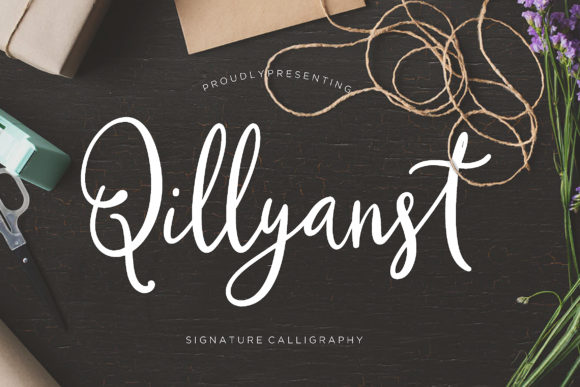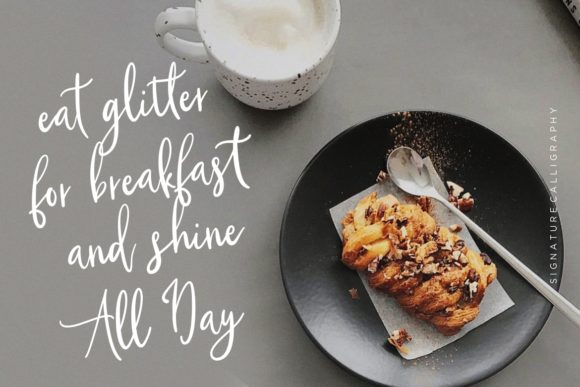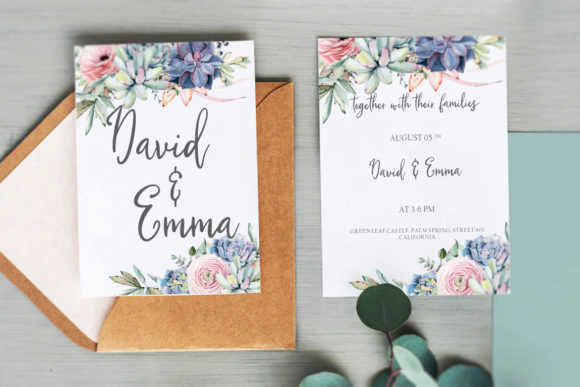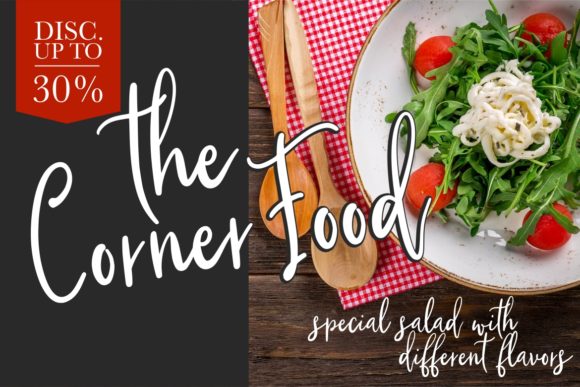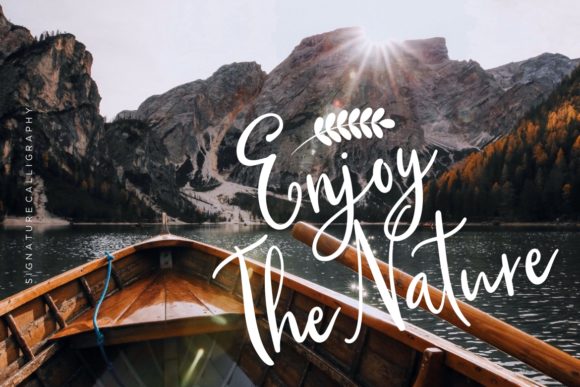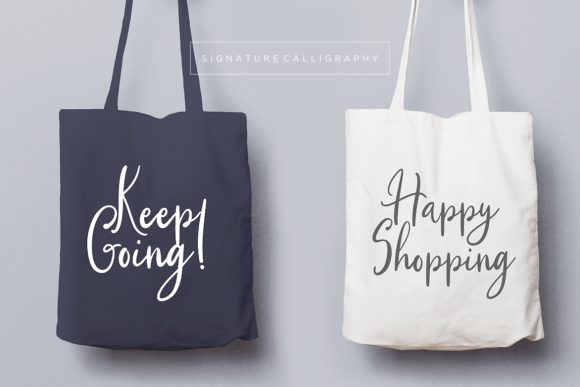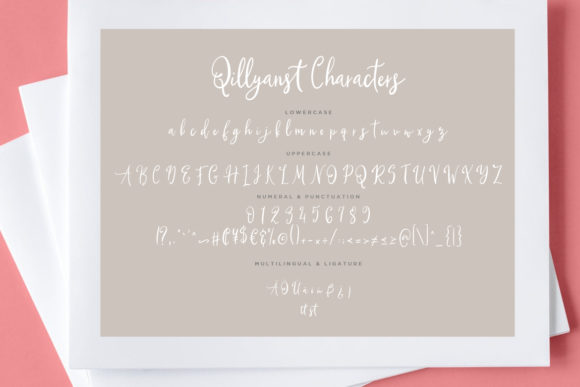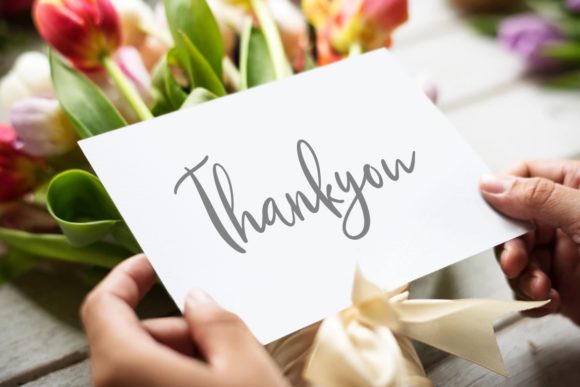
HomeScript FontsQillyanst Font Script Fonts Qillyanst Font FacebookXPinterestWhatsApp Qillyanst Font Poster 2 Qillyanst Font Poster 3 Qillyanst Font Poster 4 Qillyanst Font Poster 5 Qillyanst Font Poster 6 Qillyanst Font Poster 7 Qillyanst Font Poster 8 About Qillyanst Font Qillyanst is a cool and fun handwritten font with an elegant charm. Get inspired by its modern simplicity. DOWNLOAD ON CREATIVE FABRICAThis font is sold and delivered by Creative Fabrica. Font Canyon may earn a commission if you buy through this link. People also explored Flaters Font Intuitive Font Deltory South Jakarta Font Granulated Font Figaro Font Portugal Font Milk Monday Font Bones Bony Font 402 0 TagsQillyanst Font Previous articleKalyma FontNext articleDeathblood Font LEAVE A REPLY Cancel reply Comment: Please enter your comment! Name:* Please enter your name here Email:* You have entered an incorrect email address! Please enter your email address here Website: Save my name, email, and website in this browser for the next time I comment. Personal Use Free Quick Count Personal Use Free Read more about this font Pretender Personal Use Free Read more about this font My Ugly Handwritting Personal Use Free Read more about this font Soria Personal Use Free Read more about this font BLOG How to Cut Any Font on Cricut: Convert a Font to SVG (Free) Turn any font into a clean SVG so it cuts crisp on Cricut - a quick 3-step workflow using a free font-to-SVG tool. To increase your work productivity, choose the most readable fonts. Top 10 Handwritten Fonts That Elevate Your Designs Free Fonts Risk: Why Free Fonts Can Be Dangerous for Designers